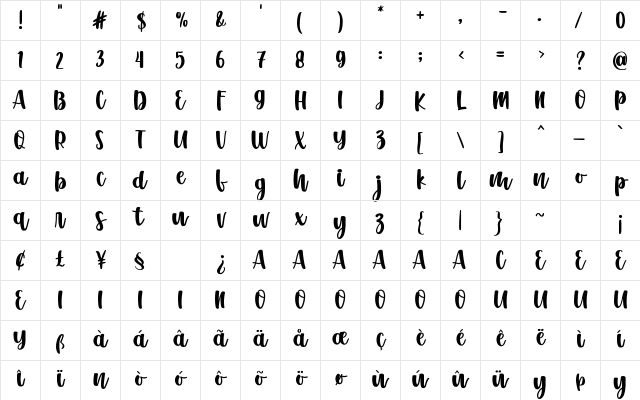
Love Sparks Regular
Foundry: HansCo
Designer: Burhan Afif
Design Context for Love Sparks
Love Sparks is a composed and adaptable typeface that performs quietly and consistently across a wide range of design contexts.